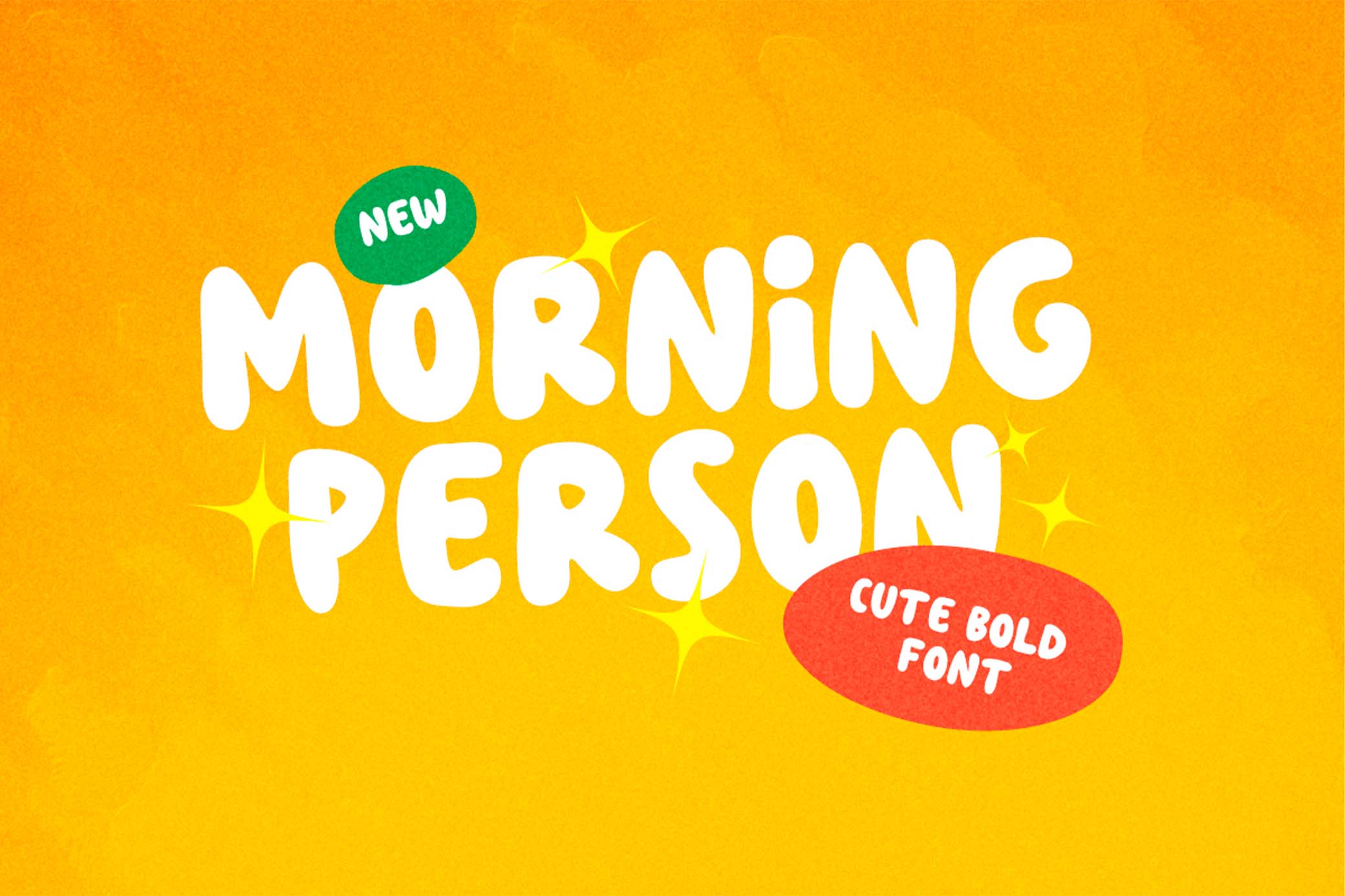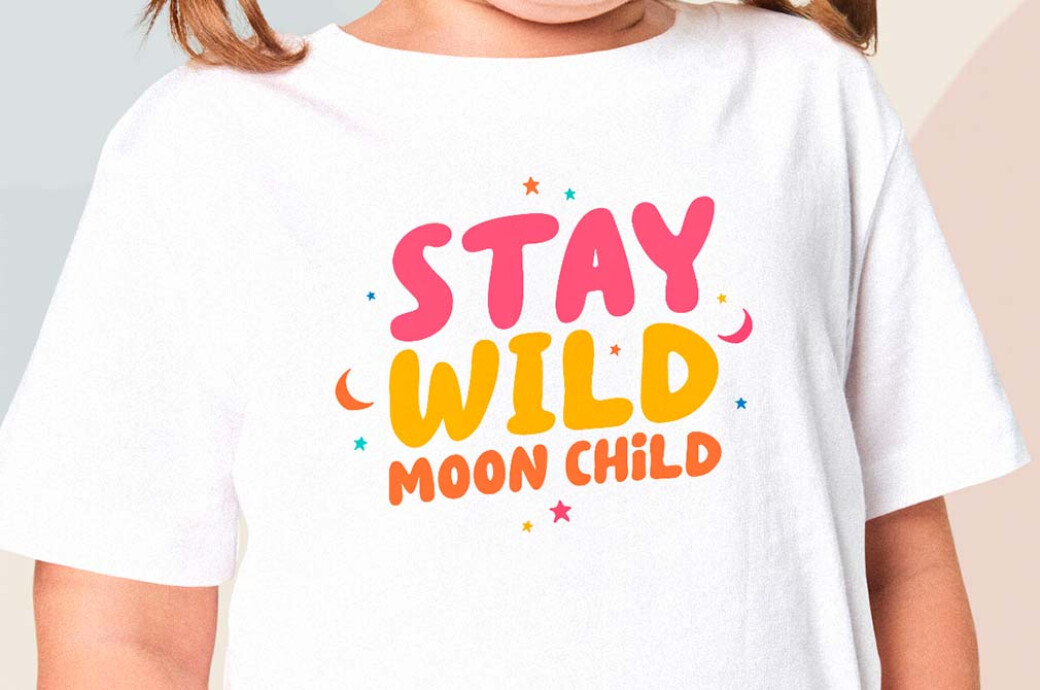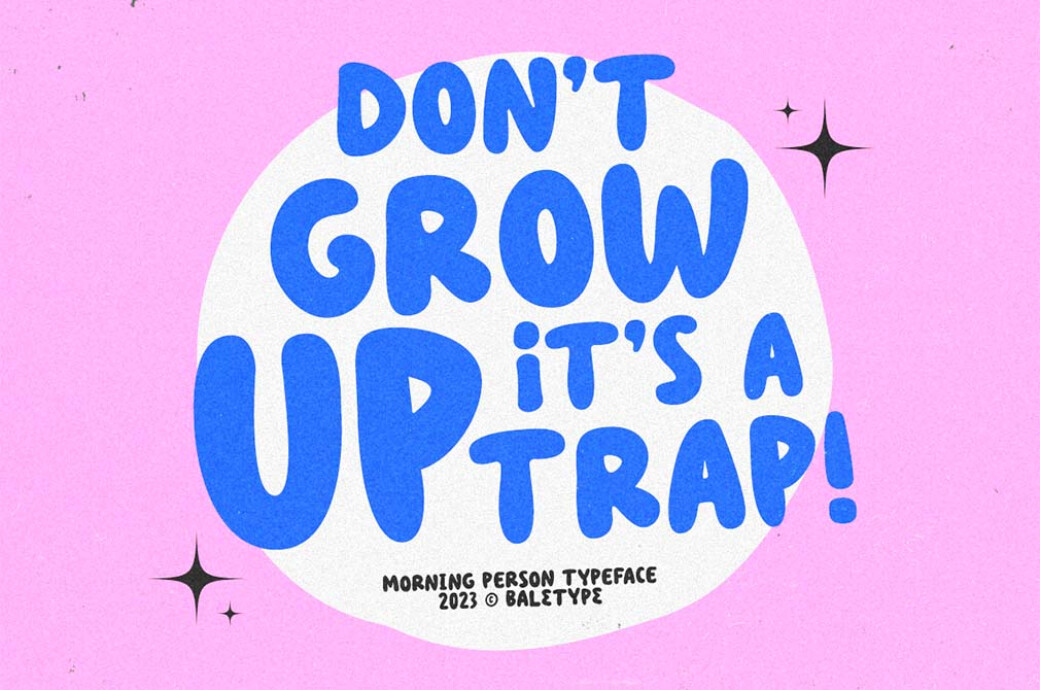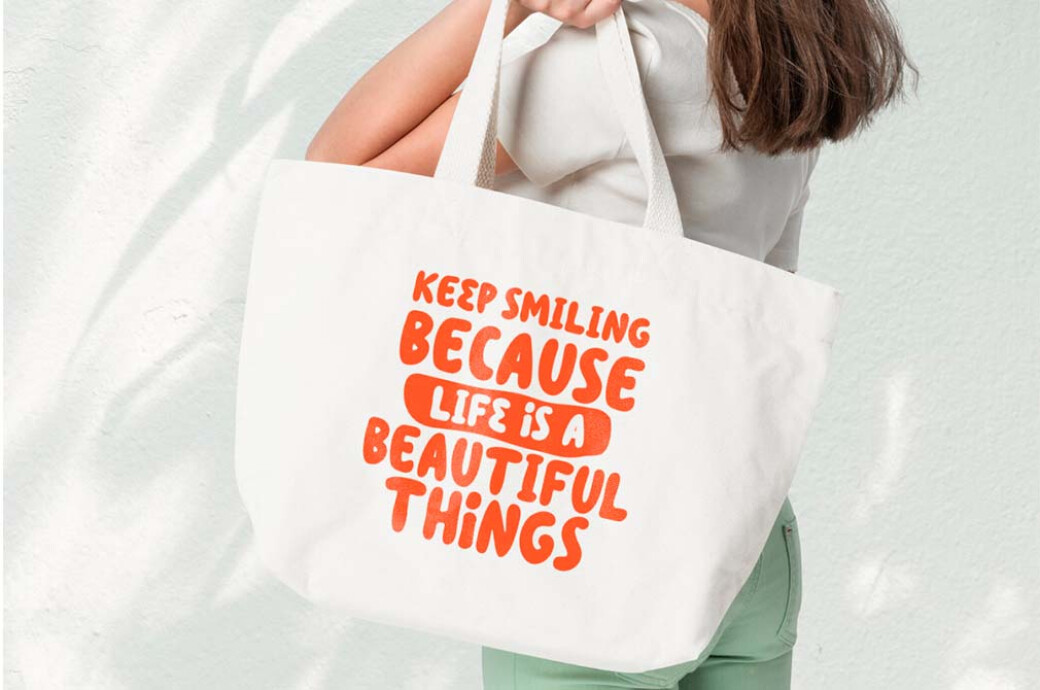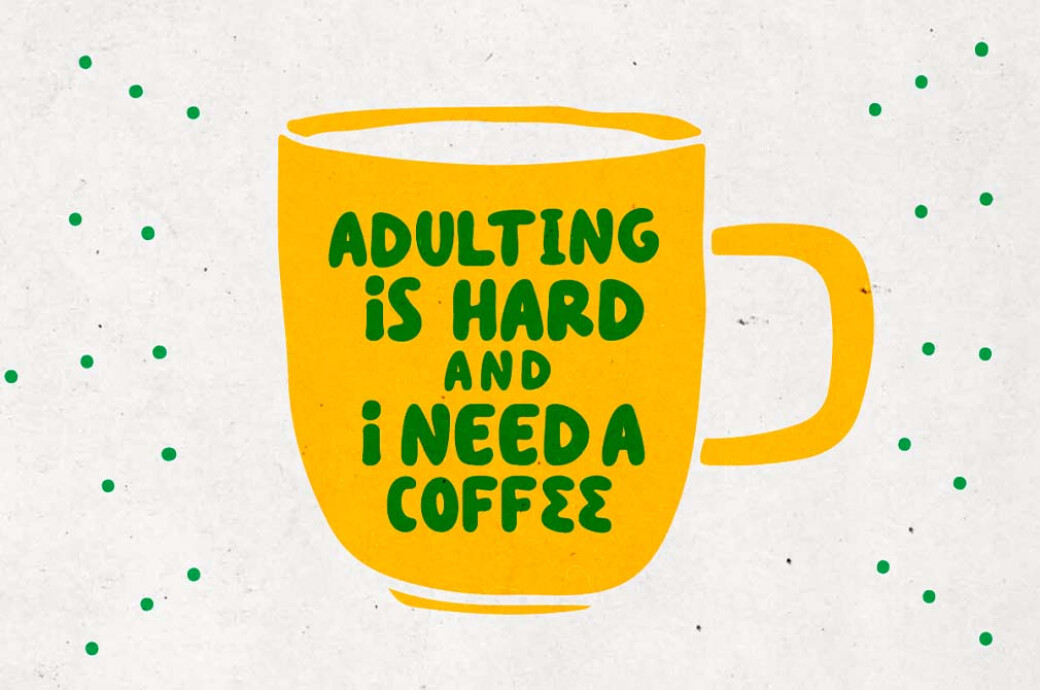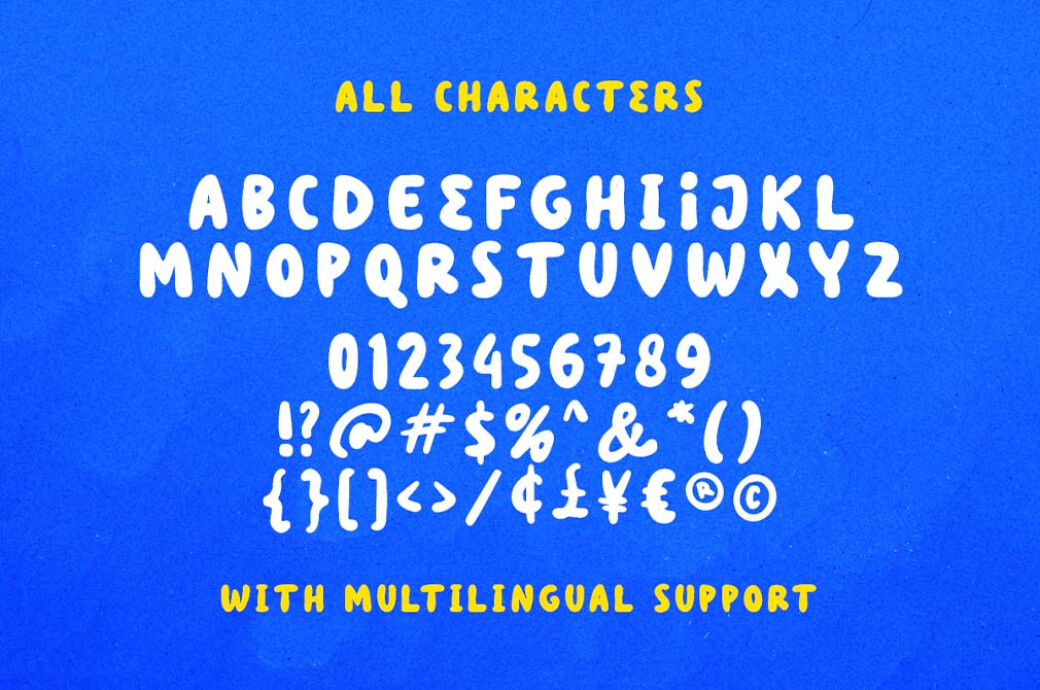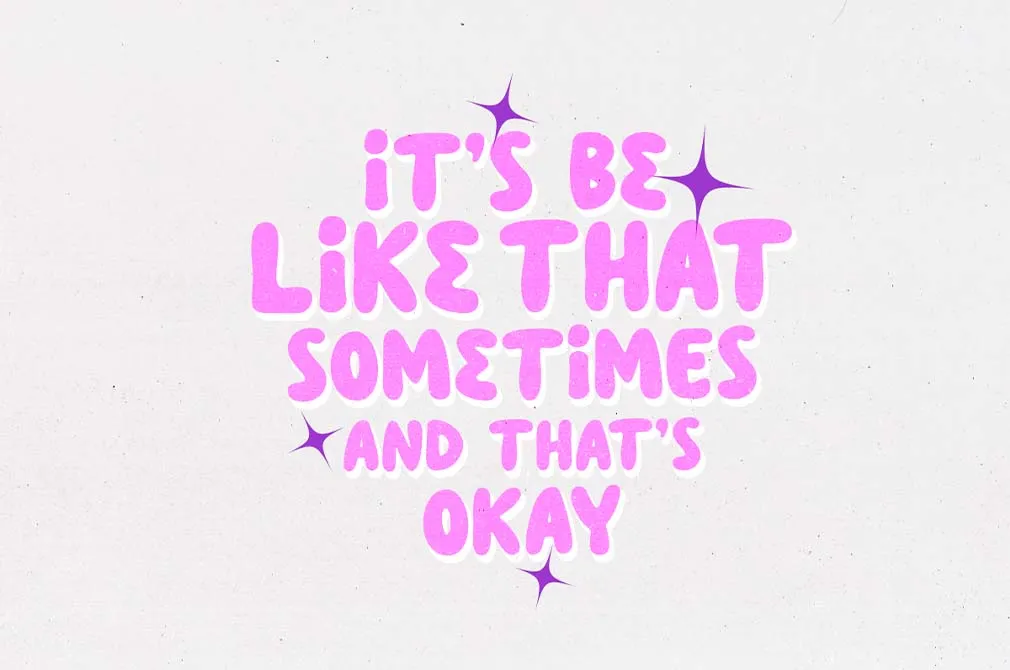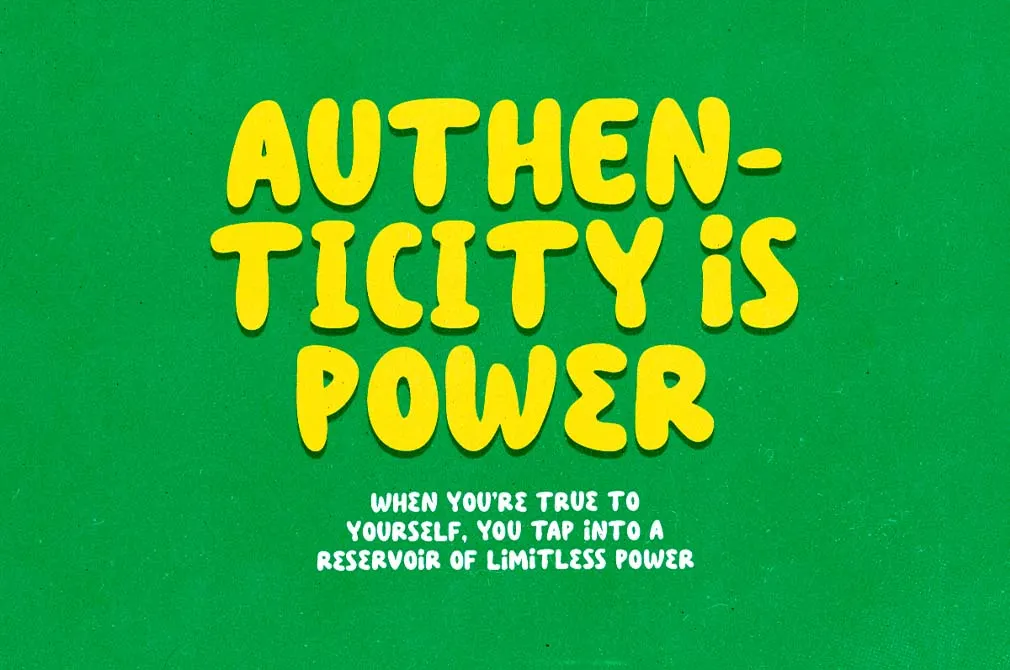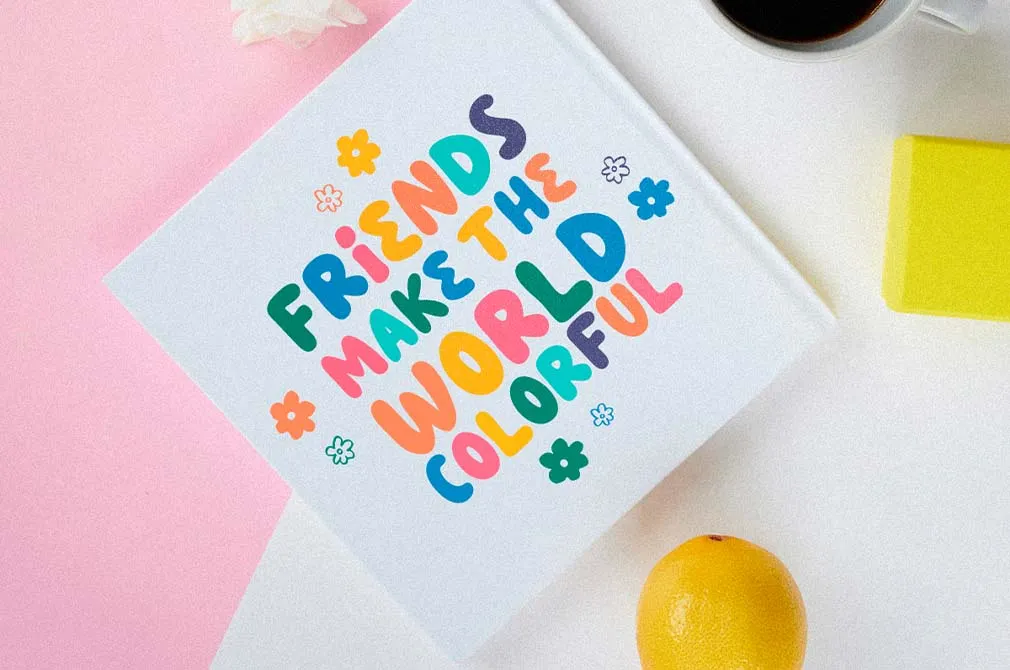
Morning Person — Cute Bold Font
Do you know this awesome moment when you wake up in the morning and you are cheerful and energetic? Us neither. For that matter, you can borrow the mood from the Morning Person font, it exudes joy and enthusiasm.
Fresh and shiny as a morning person’s face, this typeface will look good in any kids-related project. The rounded shapes of this all-caps font are so cute that you almost want to hug them. Numerals, punctuation, and multilingual glyphs are also included in the character set, making it suitable for a wide array of purposes. This font instantly induces the urge to create inspirational posters and t-shirts with uplifting sayings.